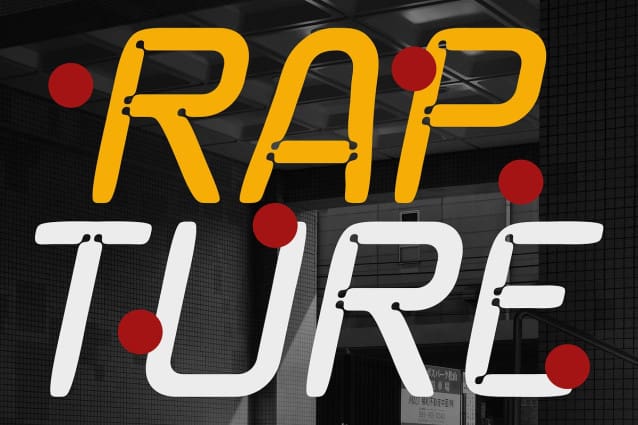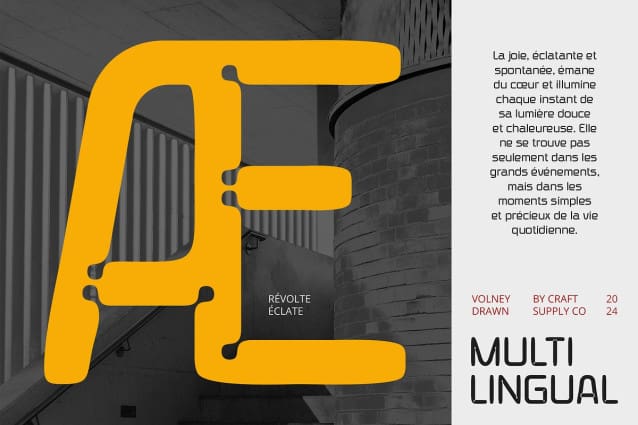
Volney Drawn Font
Volney Drawn combines the sleek, clean lines of a modern sans-serif with the precision of inktrap design. The inktrap details ensure smooth transitions at the corners, enhancing legibility while maintaining a crisp, geometric structure. This gives the font a sharp, contemporary look ideal for a range of design applications.
Artistic Hand-Drawn Effect for Unique Flair The hand-drawn effect introduces a creative, organic touch to the geometric form, adding personality and artistic expression. This balance of structured design and spontaneous creativity results in a unique and visually dynamic font.
Perfect for Branding, Editorial, and Digital Projects Volney Drawn is ideal for projects that require a blend of modern aesthetics and creative flair. Whether it’s used for branding, editorial designs, or digital media, this font adds a contemporary yet artistic edge to any project.
A Fusion of Clean Design and Creative Expression With its geometric precision, inktrap details, and hand-drawn uniqueness, Volney Drawn offers a modern and versatile design solution that strikes the perfect balance between functionality and artistic expression.